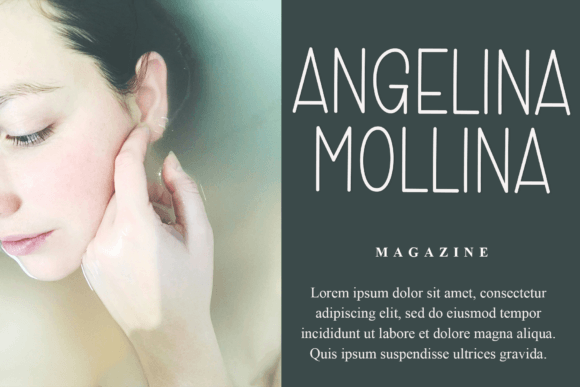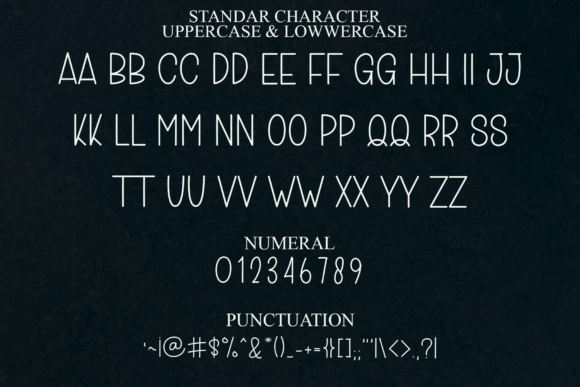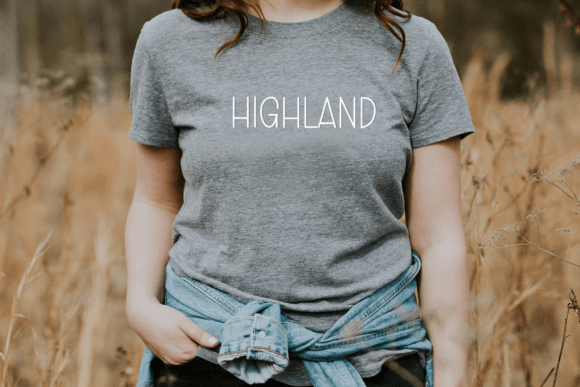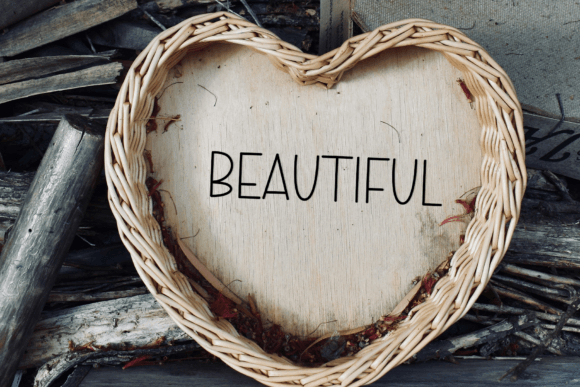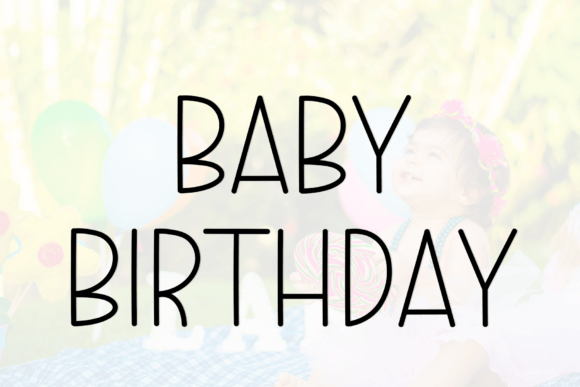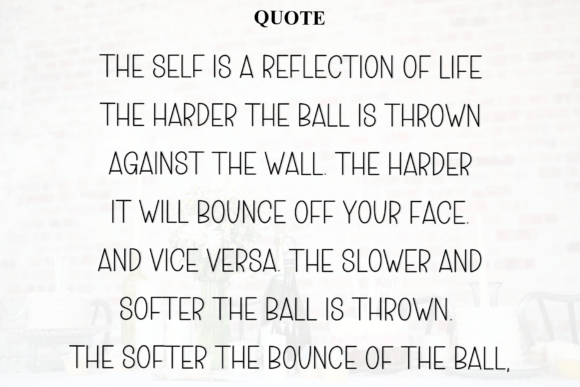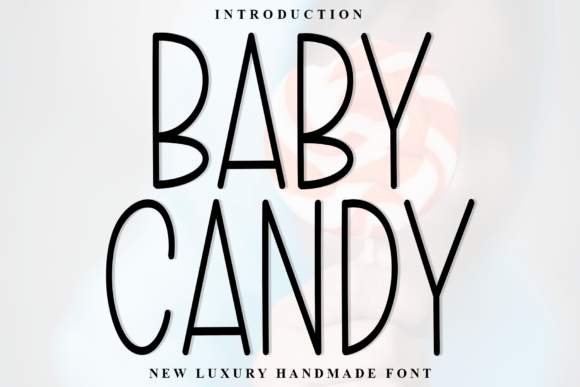
Baby Candy Font: The Sweetest Addition to Your Design Projects
Are you tired of using the same old fonts in your design projects? Look no further than the Baby Candy Font, a beautiful and eye-catching font that is sure to add a touch of sweetness to your creations. Designed with a soft, unique touch, this font is perfect for designers, crafters, and artists looking to add a little something special to their work.
A Font Like No Other
Baby Candy is a distinctive font that stands out from the crowd. Its soft, rounded edges and unique strokes give it a special character that is both meaningful and versatile. Whether you’re working on a design project, crafting a handmade card, or creating a work of art, this font is sure to make your work shine. With a wide range of characters to choose from, you can use Baby Candy to create everything from sweet and simple designs to complex and intricate works of art.
Perfect for Design Projects
Baby Candy Font is perfect for a wide range of design projects, from digital graphics to print materials. Its unique style and versatility make it ideal for use in:
- Brochures and flyers
- Posters and signs
Whether you’re a professional designer or just starting out, Baby Candy Font is a great addition to your font library.
Crafting and DIY Projects
Baby Candy Font is also perfect for crafters and DIY enthusiasts. Its sweet and playful style makes it ideal for use in:
- Handmade cards and gift tags
- Scrapbooking and journaling
- DIY signs and decorations
- Crafting and sewing projects
With Baby Candy Font, you can add a personal touch to your handmade creations and make them truly special.
Why Choose Baby Candy Font?
So why choose Baby Candy Font for your design projects? Here are just a few reasons:
- Unique and eye-catching style
- Soft and playful touch
- Wide range of characters and versatility
- Compatibility with a wide range of applications and platforms
- Perfect for design projects, crafting, and DIY
Whether you’re a professional designer or just starting out, Baby Candy Font is a great choice for anyone looking to add a little something special to their work.
In conclusion, Baby Candy Font is a beautiful and eye-catching font that is perfect for designers, crafters, and artists looking to add a touch of sweetness to their work. With its unique style, versatility, and compatibility with a wide range of applications and platforms, it’s the perfect addition to your font library. So why wait? Download Baby Candy Font today and start creating sweet and special designs that will delight audiences of all ages!